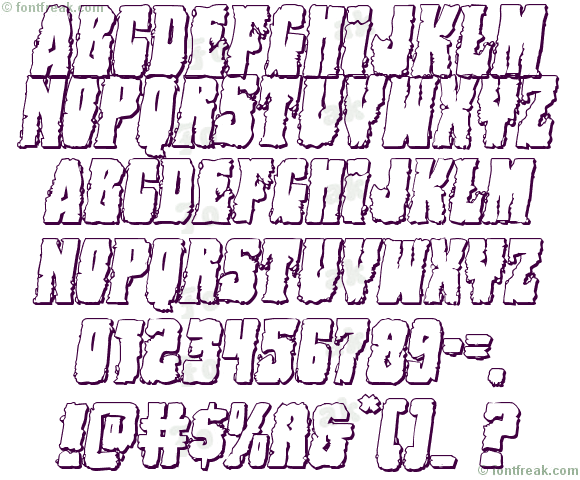
Bog Beast 3D Italic
Bog Beast 3D Italic is a striking display font designed by Daniel Zadorozny, classified as a decorative typeface. This unique font captures attention with its bold, three-dimensional appearance, characterized by chunky, irregular outlines that evoke a sense of playfulness and creativity. The italicized structure adds a dynamic quality, giving it a sense of motion that can elevate any design project. The stroke weight is consistent, providing a sturdy feel, while the slightly condensed spacing enhances readability, making it suitable for various applications.
The visual characteristics of Bog Beast 3D Italic are perfect for eye-catching designs. Its unconventional, beastly outline is reminiscent of themes found in fantasy or adventure genres. This font shines in use cases such as movie posters where a dramatic impact is essential, video game cover art that demands attention, or even merchandise branding for products aimed at a youthful audience. Additionally, it can be a fun choice for college event flyers and promotional materials, bringing a spirited energy that resonates with students.
Targeted toward graphic designers, small business owners, and content creators, Bog Beast 3D Italic is a versatile option that can invigorate various design projects. Whether you're looking to create a bold statement or add a whimsical touch, this font offers the flexibility to adapt to your creative vision.
What makes Bog Beast 3D Italic truly stand out is its ability to merge fun with functionality. The unique design not only captures the spirit of adventure, but also provides clarity in communication, making it an essential asset for anyone looking to make a memorable impression. Don’t miss the opportunity to enhance your designs with this captivating typeface—enjoy the Bog Beast 3D Italic font free download today.